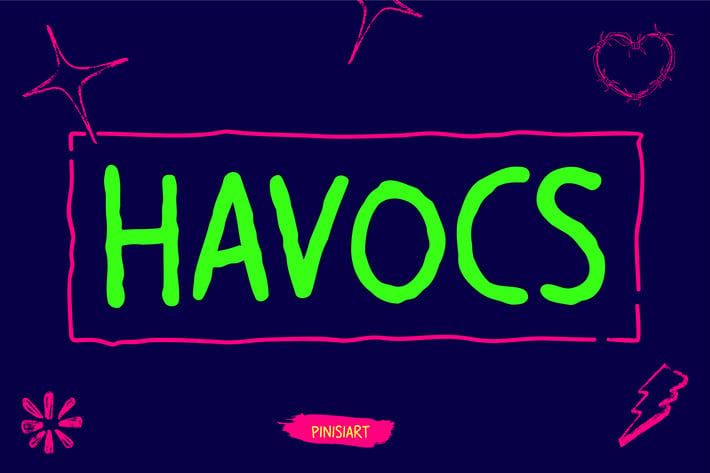
Quirky Vibrant Font - Havocs
HAVOCS – Unleash the Wild Side of Typography!
Ditch the rules and embrace the quirky, chaotic energy of HAVOCS, a font that thrives on bold fun, playful rebellion, and neon-style expressiveness. Designed for those who love vibrant lettering, unpredictable curves, and lively creativity, HAVOCS delivers a dose of energy and personality to any design.
Perfect for posters, fun branding, Halloween themes, and anything that needs a punch of playful anarchy, HAVOCS blends irregular, wobbly strokes with an electrifying color palette, making it a go-to font for expressive, youthful, and bold designs. Whether you're designing for spooky vibes, funky quotes, or experimental branding, HAVOCS ensures your words will never be ignored.
Why Choose HAVOCS?
Quirky & Expressive – A wobbly, playful style bursting with personality.
Bold & Fun – Great for posters, neon-style branding, and eye-catching graphics.
Unpredictable Letterforms – Hand-drawn irregularity that adds charm and energy.
Versatile for Spooky & Playful Designs – Ideal for Halloween, funky quotes, and chaotic layouts.
Optimized for Digital & Print – Perfect for social media, branding, and creative storytelling.
⚡ Break the norm, create some HAVOCS! ⚡